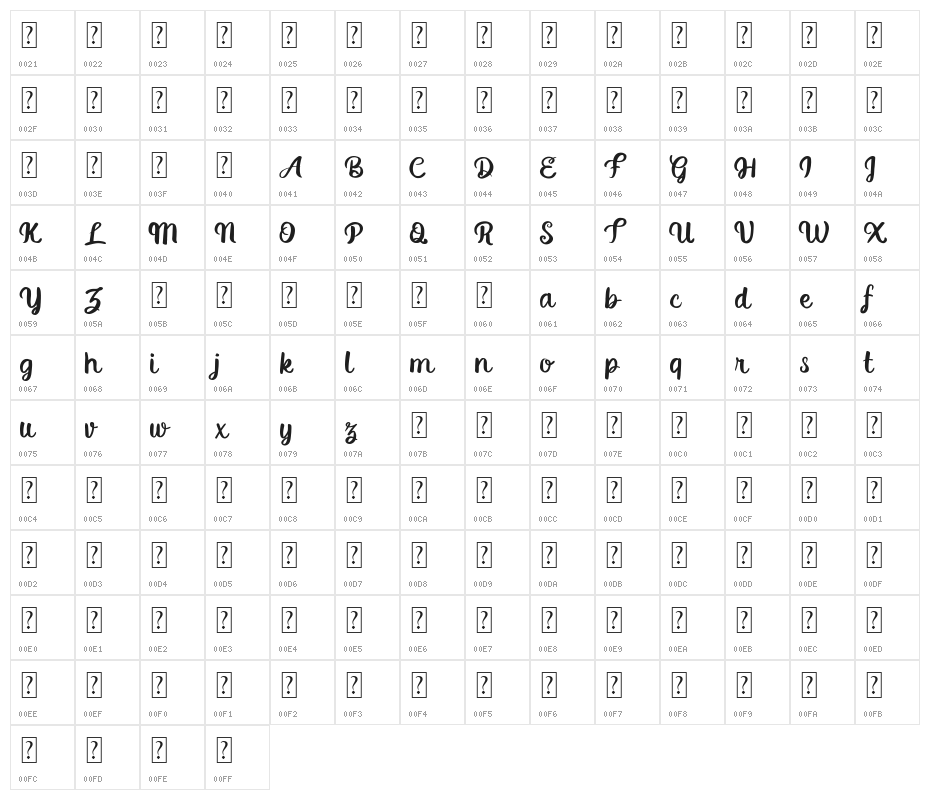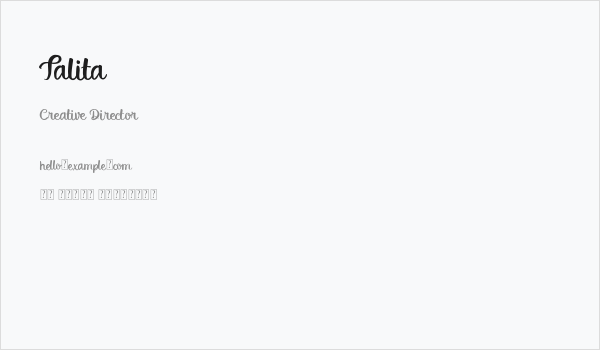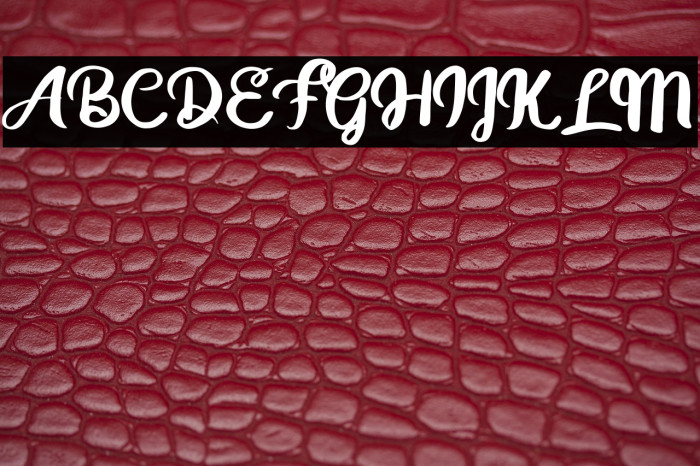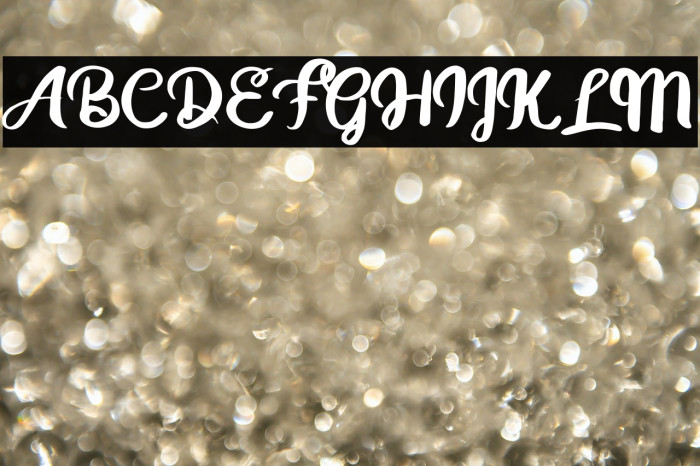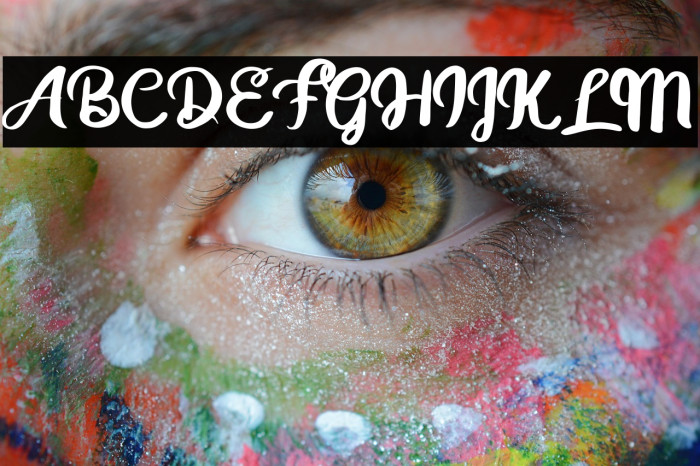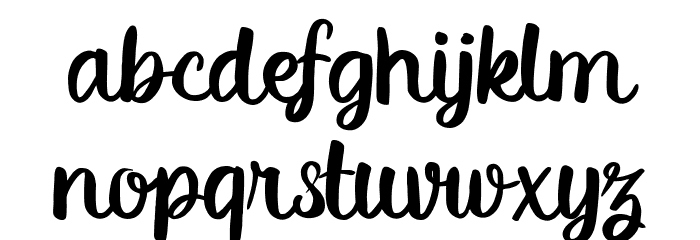
Talita Font
Talita Description
This font features a playful and elegant script style with smooth, flowing lines that create a sense of movement and grace. The uppercase letters are bold and slightly exaggerated, adding a touch of drama, while the lowercase letters maintain a consistent rhythm with rounded forms and gentle curves. The font has a handwritten feel, making it perfect for projects that require a personal touch. The character spacing is normal, allowing for easy readability. The font's overall style is modern yet timeless, suitable for a variety of design needs.
| Use Case | Logos, Invitations, Social Media Graphics |